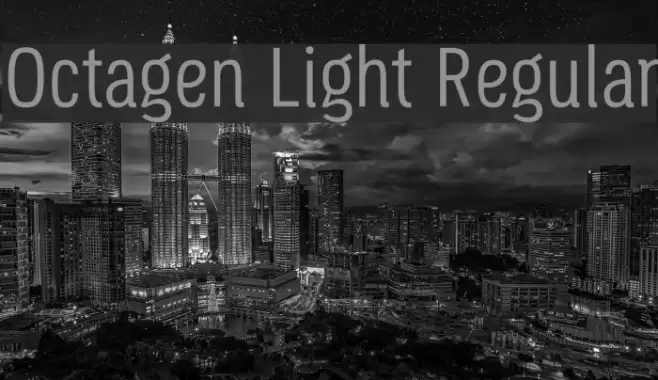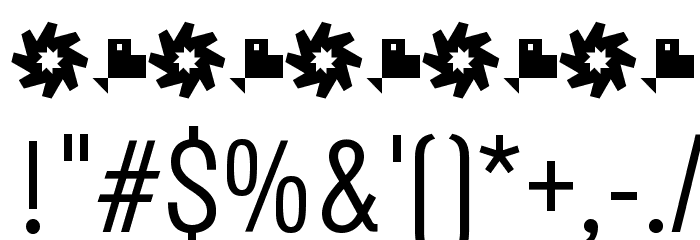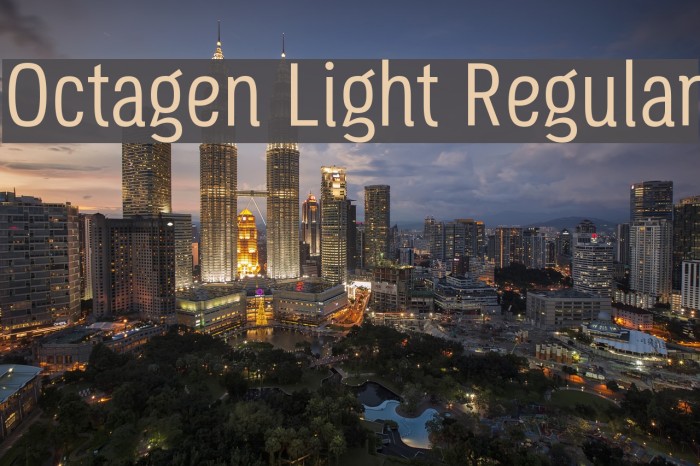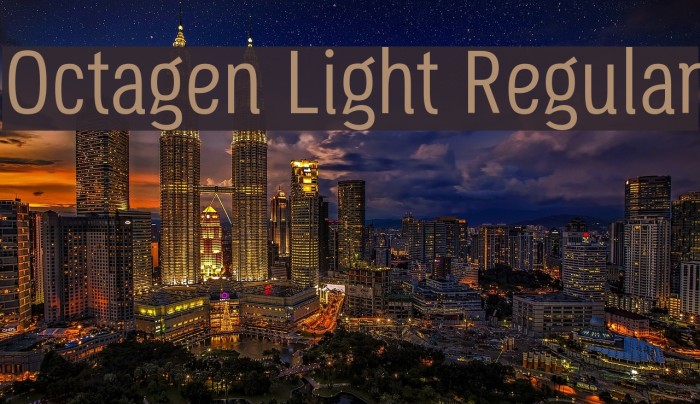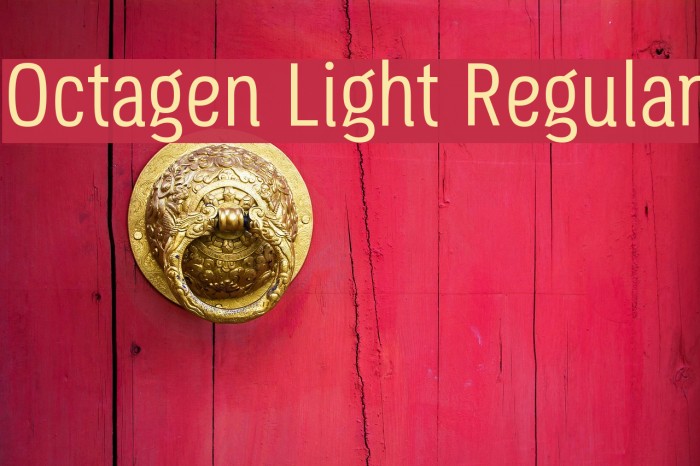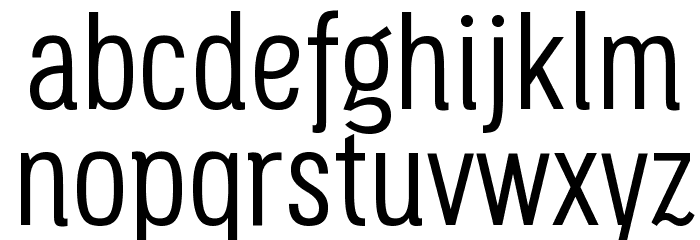
Octagen Light Regular Font
Octagen Light Regular Description
This font features a clean and modern sans-serif style with a light weight, making it ideal for a variety of design applications. The characters are evenly spaced and have a consistent stroke width, providing a balanced and harmonious appearance. The uppercase letters are tall and slightly condensed, while the lowercase letters maintain a uniform height, contributing to the font's readability. The numerals and special characters are designed to complement the alphabet, ensuring a cohesive look across all text elements. The overall design is sleek and minimalistic, suitable for contemporary projects.
A modern, light sans-serif font with clean lines and balanced spacing from Uncategorized fonts.